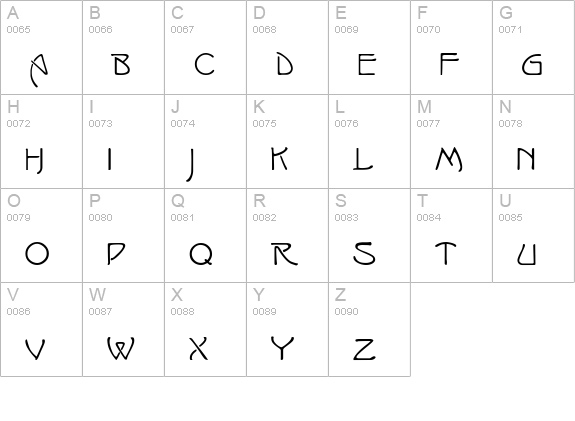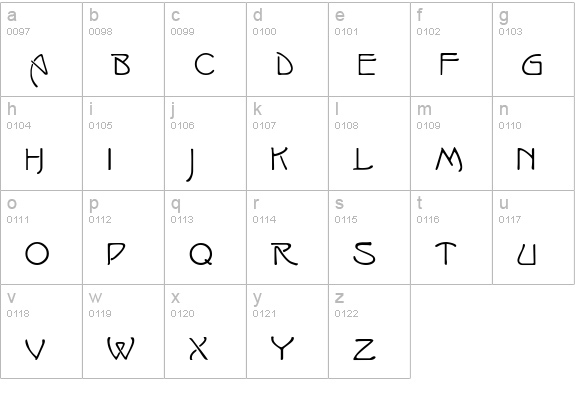
Isadora Font Details
Isadora font is a stunning display typeface that exudes elegance and charm. This versatile font is perfect for adding a touch of sophistication to any project, whether it be a logo, branding, invitations, or editorial design. With its delicate letterforms, Isadora font captures the essence of classic beauty with a modern twist. One of the greatest features of Isadora font is that it is free to download at FontsMarket.com. This means that you can effortlessly enhance your designs without any additional cost. With just a few clicks, you can have this exquisite typeface at your fingertips, ready to elevate your creative works to new heights. The Isadora font family offers a range of weights and styles, allowing you to experiment and find the perfect balance for your design needs. Whether you're looking for a bold and impactful look or a more delicate and refined aesthetic, Isadora font has you covered. The flowing curves and intricate details of Isadora font make it a true standout among other typefaces. Its graceful appearance draws attention and commands a strong visual presence. From large headlines to small body text, Isadora font ensures legibility and readability while maintaining its unique and eye-catching appeal. When it comes to versatility, Isadora font exceeds expectations. It can effortlessly adapt to various design styles and themes, making it a go-to choice for designers across different industries. Whether you're working on a luxury brand, a fashion magazine, or a wedding invitation, Isadora font will add that extra touch of sophistication and elegance that sets your designs apart. With Isadora font, you have the freedom to unleash your creativity and bring your visions to life. Its timeless beauty and freely available download make it an indispensable tool in any designer's arsenal. So why not give your designs the touch of class they deserve? Download Isadora font now at FontsMarket.com and let your creativity soar.